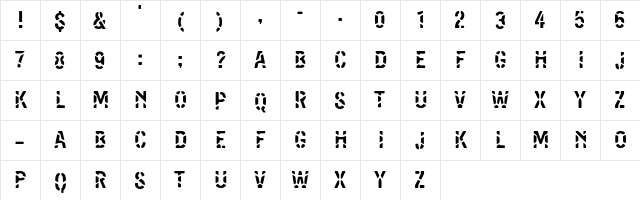
Entulho Stencil
Design Context for Entulho Typeface
Entulho has the rough pragmatism of spray-painted stencil signage, adding a raw, street-level authenticity to designs.
A strong choice for packaging that needs edge, warehouse aesthetics, and rough-and-ready visual identities.
Pro Tip: Use Entulho at large sizes on packaging, posters, or apparel where the stencil cutaways read clearly. Avoid small sizes where those gaps become visual noise.